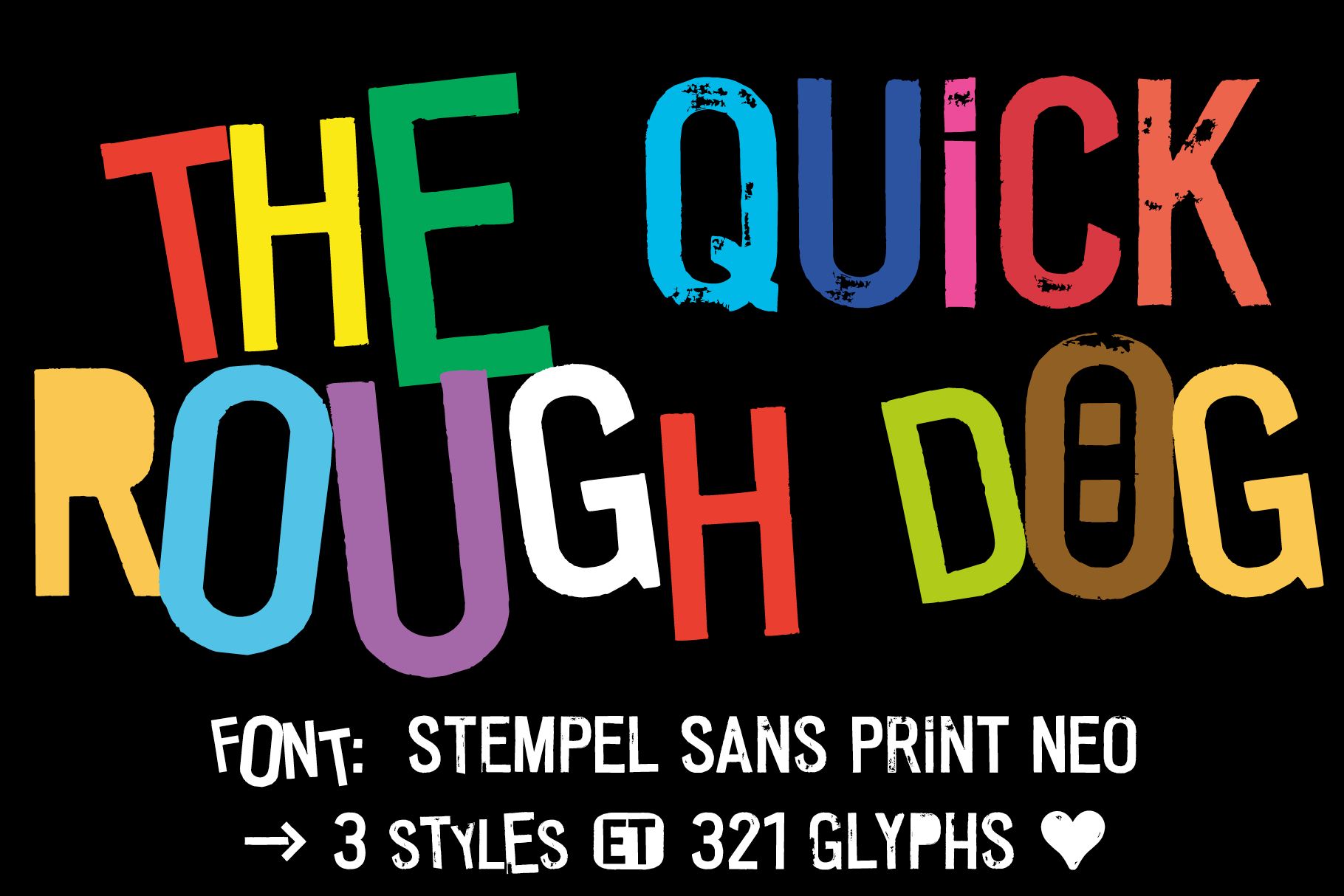
FONT | Stempel Sans Print Neo
The typeface Stempel Sans Print Neo is designed from 2022 for the font foundry Typo Graphic Design by Manuel Viergutz.
The display font based on a original set of 29 old rubber stamps (6 cm height). Digitized via hand-stamped, a scanner and Glyphs app.
3 font-styles (Rough, Misprint, Black) with 321 glyphs incl. decorative extras like icons, arrows, dingbats, emojis, symbols, geometric shapes (type the word #LOVE for ❤ or #SMILE for ☺ as OpenType-Feature dlig) and stylistic alternates (6 stylistic sets).
For use in logos, magazines, posters, advertisement plus as webfont for decorative headlines. The font works best for display size.